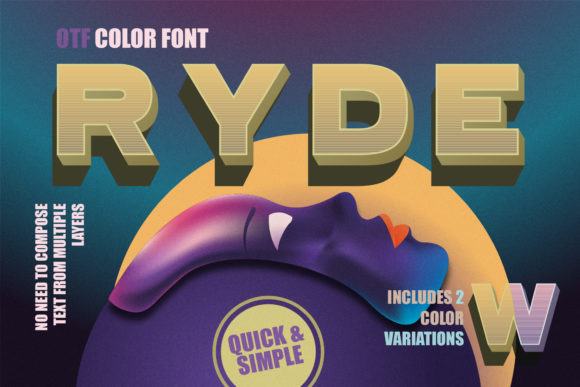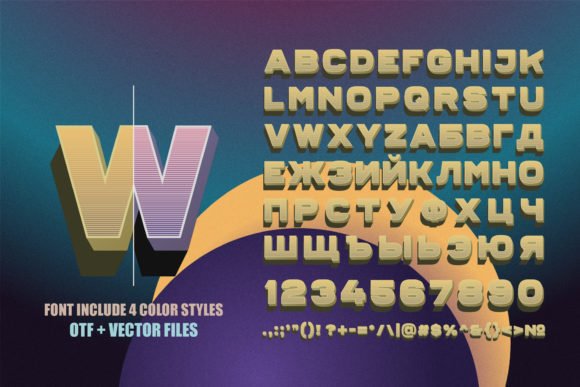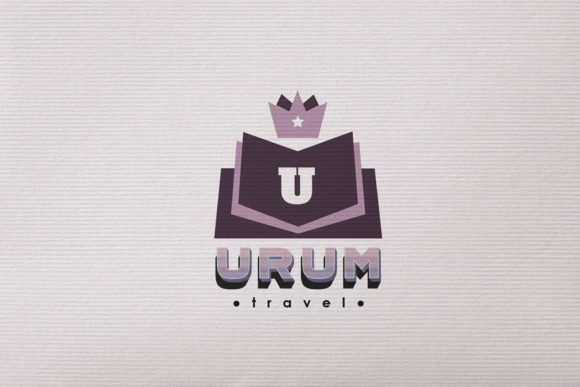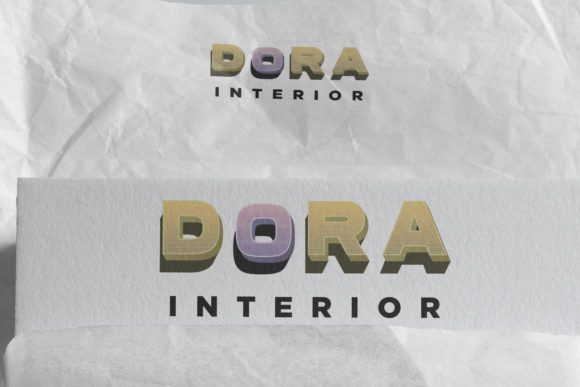
About Ryde Font
Ryde is a bold and eye-catching color font with a cool and thick lettered style. This font is designed to make a strong visual impact and can enhance a wide range of creative projects. Whether you’re working on graphic design, branding, advertising, social media posts, or any other creative endeavor, Ryde has the potential to elevate your typography and add a unique touch to your designs.
As a color font in the Opentype-SVG format, Ryde allows you to incorporate vibrant colors and a three-dimensional appearance directly into your typography. This adds depth and visual interest to your designs, making them stand out from the crowd. You can use Ryde in software such as Photoshop, Illustrator, Silhouette, and Inkscape to fully unleash its creative potential.
With Ryde, you have a powerful tool at your disposal to create bold and attention-grabbing typographic designs. Explore its potential, experiment with colors and layouts, and let your creativity shine through!